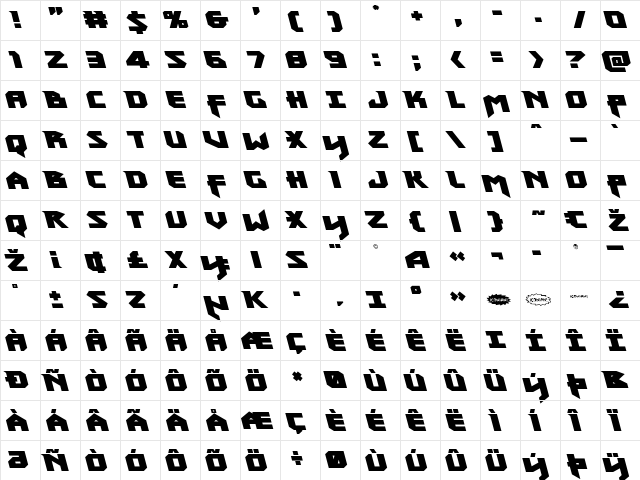
Heavy Copper Leftalic Italic
Design Context for Heavy Copper Leftalic Typeface
Heavy Copper Leftalic is a composed and adaptable typeface that performs quietly and consistently across a wide range of design contexts. The dynamic lean of this cut emphasises speed and emphasis in any layout.
Pro Tip: Try Heavy Copper Leftalic for annotation and caption copy alongside an upright companion — the contrast in angle creates a dynamic but ordered typographic system.